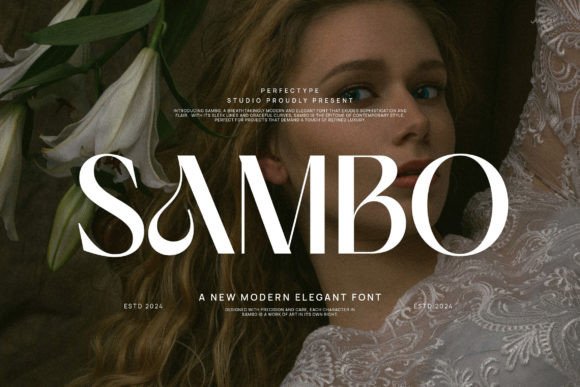
Introducing the Elegance of Sambo Font: Elevate Your Designs with Luxury and Sophistication
In the world of design, the right font can make all the difference. It can elevate your brand, convey your message, and leave a lasting impression on your audience. If you’re looking for a font that exudes elegance, luxury, and sophistication, look no further than the Sambo Font. This stunning serif font is designed to meet the needs of designers who demand the best, and in this article, we’ll explore its features, benefits, and uses.
What is Sambo Font?
Sambo Font is a beautifully crafted serif font that embodies the essence of elegance and luxury. Its intricate details and classic design make it perfect for high-end branding, logos, and various design projects. Whether you’re working on a corporate identity, advertisement, or packaging design, Sambo Font is sure to impress.
Key Features of Sambo Font
- Elegant and Luxurious Design: Sambo Font boasts a sophisticated design that screams luxury and elegance.
- Serif Font: As a serif font, Sambo Font features small lines or flourishes at the ends of its strokes, giving it a classic and timeless look.
- High Legibility: Designed with readability in mind, Sambo Font ensures that your message is conveyed clearly and effectively.
- Versatile: From branding and logos to social media posts and packaging design, Sambo Font can be used in a wide range of applications.
The Benefits of Using Sambo Font
Sambo Font offers numerous benefits to designers and brands looking to elevate their visual identity. Some of the advantages of using Sambo Font include:
Why Choose Sambo Font?
- Instant Brand Recognition: With its unique and elegant design, Sambo Font can help establish your brand’s identity and make it instantly recognizable.
- Professionalism: Sambo Font exudes professionalism, making it perfect for businesses, corporations, and high-end brands.
- Emotional Connection: The luxurious feel of Sambo Font can evoke emotions and create a connection with your target audience.
- Flexibility: Sambo Font can be used across various platforms, from digital to print, ensuring consistency in your brand’s visual identity.
Creative Uses of Sambo Font
Sambo Font is an incredibly versatile font that can be used in a multitude of design projects. Here are some creative ways to use Sambo Font:
Design Projects that Sambo Font is Perfect For
- Branding and Logos: Create a lasting impression with a custom logo or brand identity that incorporates Sambo Font.
- Social Media Posts: Elevate your social media presence with elegant and sophisticated posts that feature Sambo Font.
- Advertisements: Grab attention and convey your message effectively with Sambo Font in your advertisements.
- Labels and Packaging: Add a touch of luxury to your product packaging and labels with Sambo Font.
- Photography and Wedding Designs: Use Sambo Font to add a touch of elegance to your photography and wedding designs.
- Watermarks and Invitations: Create custom watermarks and invitations that feature Sambo Font for a sophisticated look.
- Product Designs and Stationery: Incorporate Sambo Font into your product designs and stationery for a cohesive brand identity.
Tips for Using Sambo Font Effectively
To get the most out of Sambo Font, here are some tips to keep in mind:
Best Practices for Using Sambo Font
- Pair with Complementary Fonts: Experiment with pairing Sambo Font with complementary fonts to create visual interest.
- Adjust Font Sizes and Weights: Play with font sizes and weights to create hierarchy and emphasis in your design.
- Use High-Quality Images: Combine Sambo Font with high-quality images to create a visually stunning design.
- Keep it Simple: Don’t overcomplicate your design – keep it simple and elegant to let Sambo Font shine.
In conclusion, Sambo Font is an exceptional serif font that offers elegance, luxury, and sophistication to designers and brands. Its versatility, high legibility, and classic design make it perfect for a wide range of design projects. By incorporating Sambo Font into your designs, you can elevate your brand’s visual identity, create a lasting impression, and convey your message effectively.